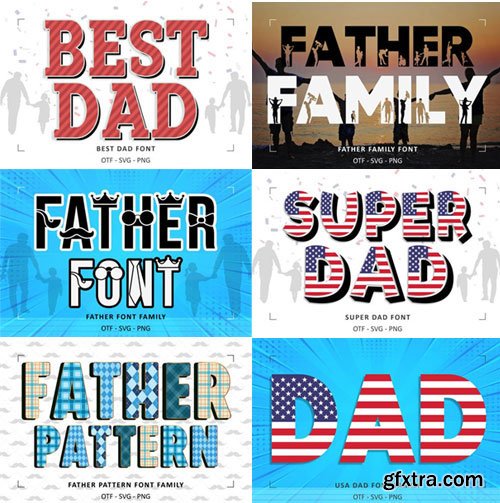
Father's Day Collection Font
- Father’s Day Collection Font gathers 15 eye-catching fonts, covering all your crafting needs for Father’s Day-themed projects. With this bundle, you can create a variety of projects from greeting cards, invitations, social media posts, logos, and so much more!